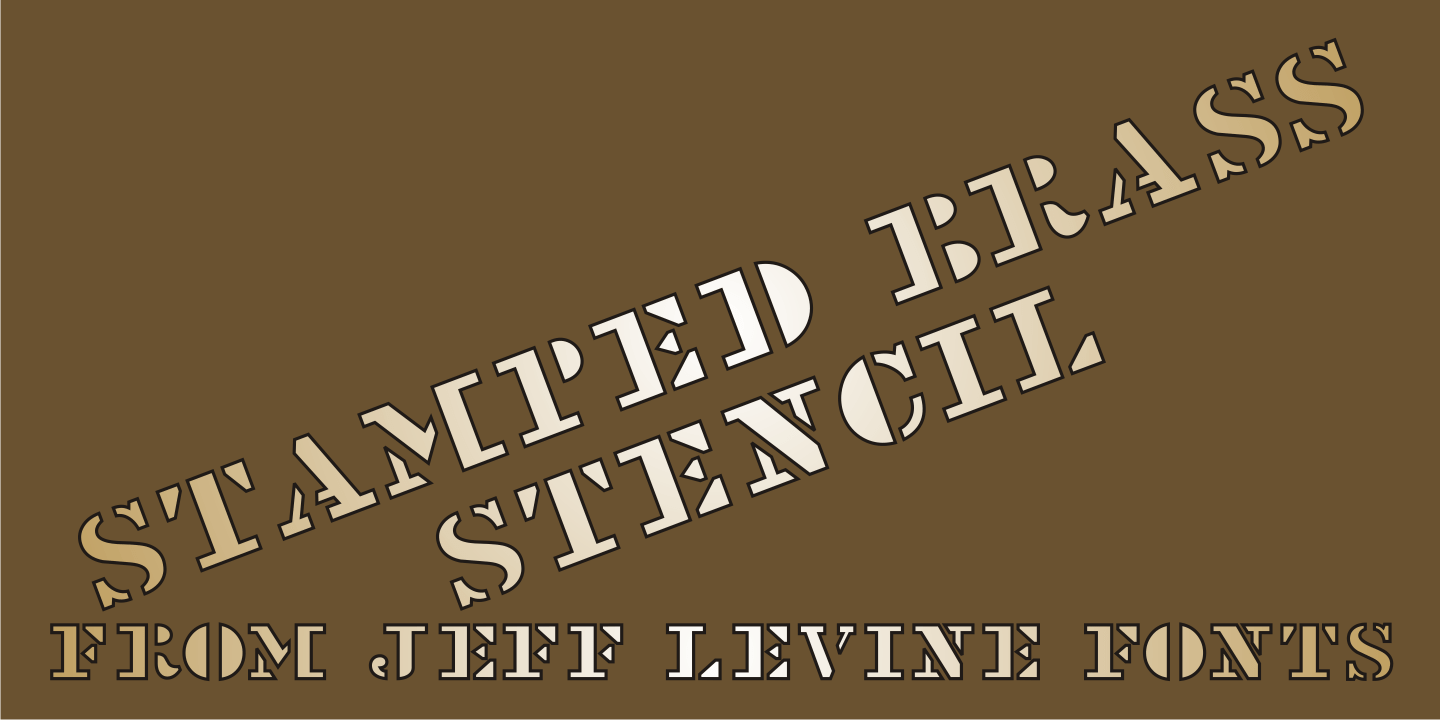
Stamped Brass Stencil
Up until the advent of modern packing and shipping methods, the common way to mark merchandise or other items to be transported was through the use of a brass stencil.
These marking devices were hand stamped (or punched) using metal dies that were struck against sheets of brass to create the letters, numbers and other symbols [unlike the steel rule die cutting method used for manufacturing paper stencils].
One such example of an antique marking stencil had letters and numbers approximately one quarter of an inch in height, and Stamped Brass Stencil JNL recreates the design complete with the unusual variations of character shapes and widths.